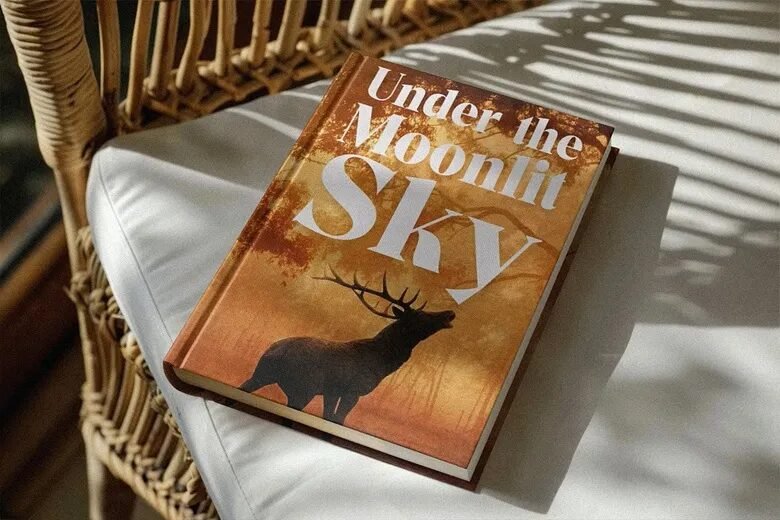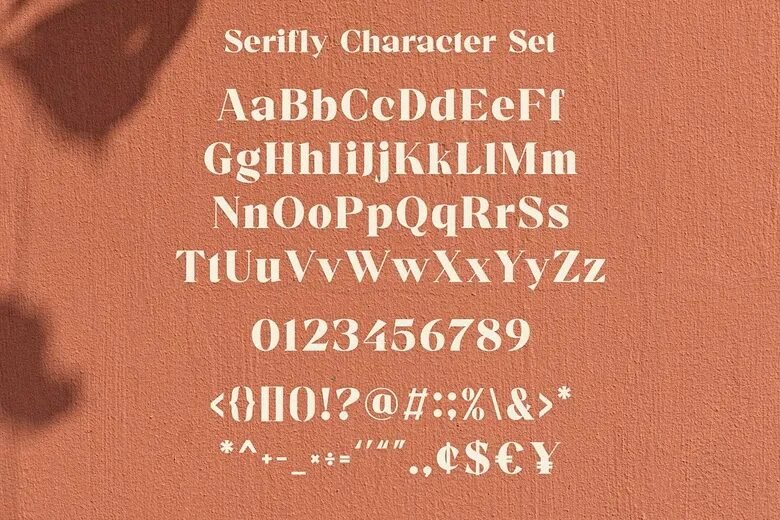
Called Serifly, this assuredly stylish, elegantly crafted serif font proves itself adaptable to numerous applications, including branding initiatives, logos, social media content, adverts, labeling, product packaging, photography, wedding design work, invitations, stationery, and a multitude of other undertakings.
Serifly Serif Font